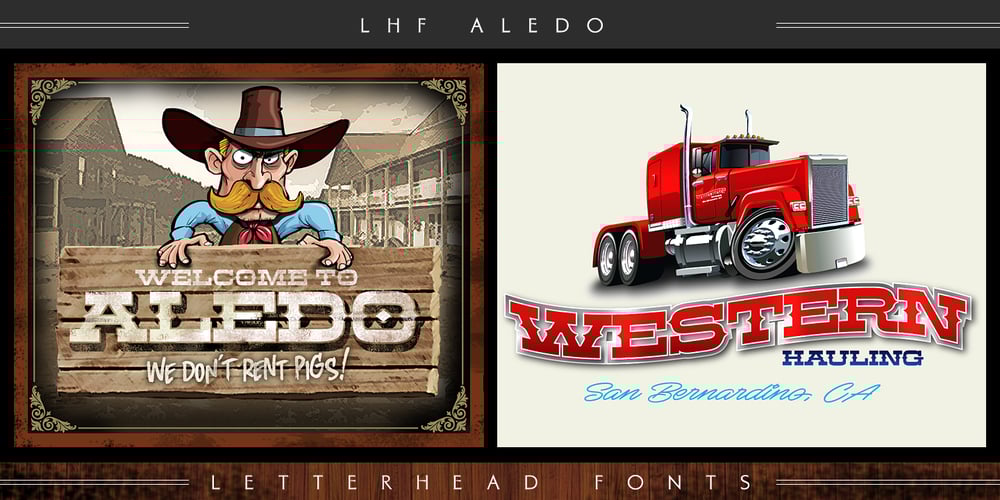
LHF Aledo Font Family was designed by David Parr and published by Letterhead Fonts. LHF Aledo contains 6 styles and family package options. Authentic Western typeface from sign designer David Parr with several styles, giving you many options for creative uses. Set includes all 6 fonts shown below. It’s important to note that Aledo Shadow 1 and Aledo Shadow 2 are only meant to be used together. At first glance, Aledo Regular and Shadow 1 might look the same, but Shadow 1 has wider spacing than Regular to allow it to be used with Shadow 2.